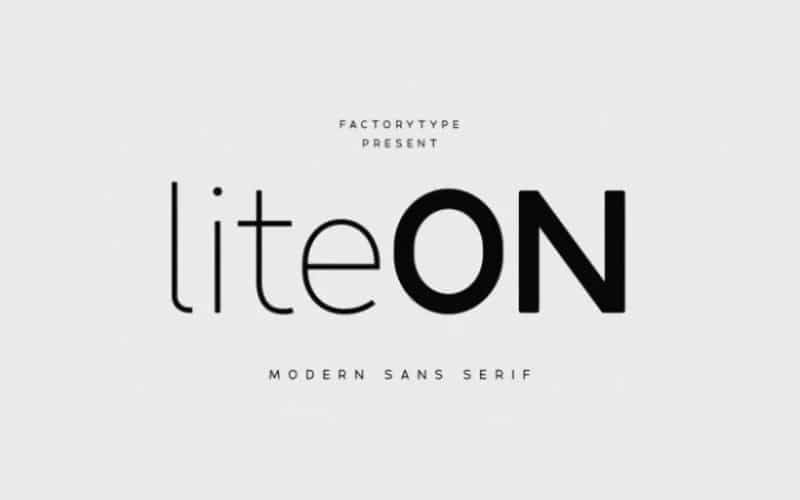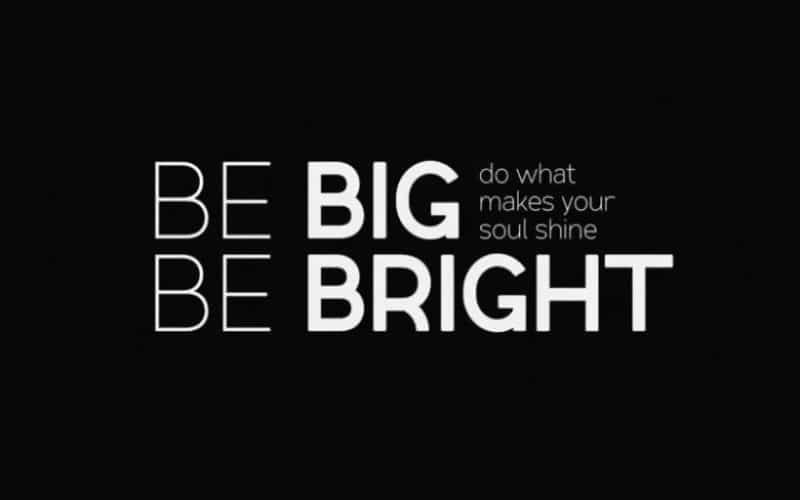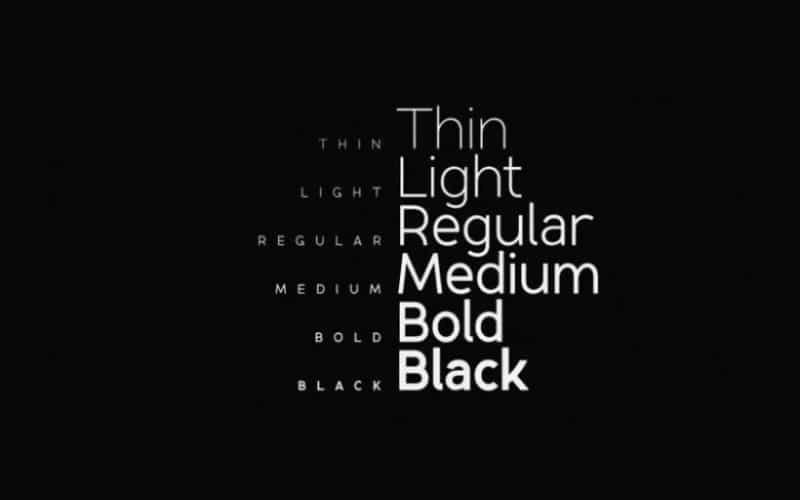
The Lite On font is an eye-catching sans-serif typeface with an eye-catching edge, created through the combination of modern and minimalist elements. When selecting the ideal typographic hue for your work, its numerous weight options provide ample choice.